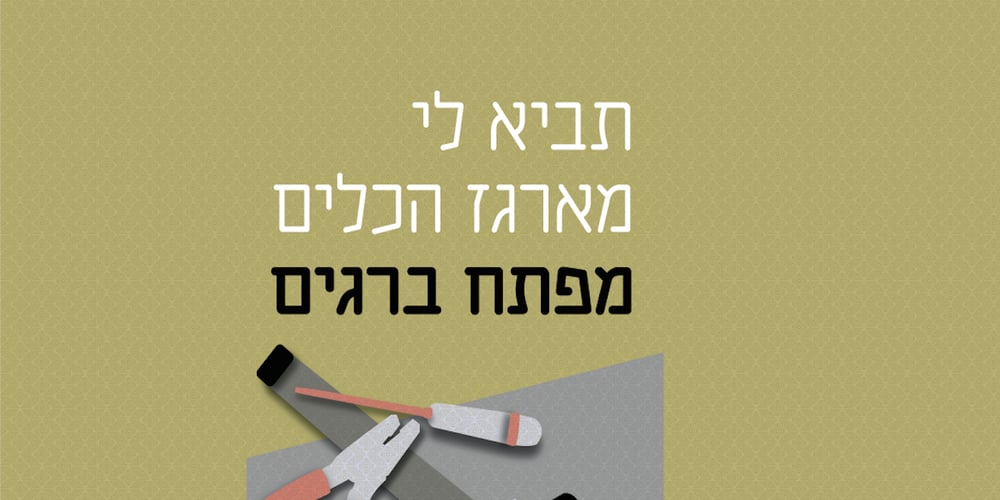
Chalifa MF Font Family was designed by Zvika Rosenberg and published by Masterfont. Chalifa MF contains 4 styles and family package options. High legible single stroke font family will be a perfect choice for text or signage.